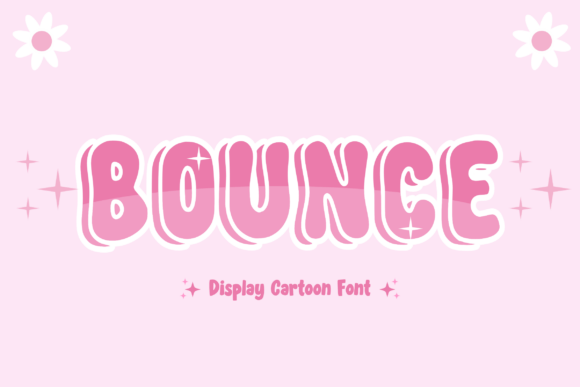
Bounce Font: Unleashing Creativity with a Contemporary Bubble-Ball Typeface
In the realm of typography, fonts play a pivotal role in conveying messages, expressing emotions, and capturing the essence of a brand or creative project. Among the myriad of fonts available, one design that has been making waves in the design community is the Bounce Font. This article aims to provide an in-depth look at the Bounce Font, its features, and the vast possibilities it offers for creative expression.
Introduction to Bounce Font
Bounce is a modern, bubble-ball typeface that has been meticulously crafted to infuse a playful and charming vibe into various design projects. What sets Bounce apart is its adorable characters that are instantly recognizable, making it an excellent choice for designers looking to add a whimsical touch to their creations.
Key Features of Bounce Font
- Playful and Charming Design: The Bounce Font boasts a unique, bubble-ball design that adds a playful and charming element to any project.
- Adorable Characters: Each character in the Bounce Font is designed to be instantly identifiable and exudes a sense of cuteness, making it perfect for projects aimed at a younger audience or those looking to evoke a sense of fun.
- Versatility: The Bounce Font is incredibly versatile and can be used across a wide range of mediums, including apparel like t-shirts, accessories such as mugs and tote bags, and even in animations and comic titles.
The Sublimation Design Process and Bounce Font
The sublimation design process has gained popularity for its ability to transfer vibrant designs onto various materials, including fabric, ceramics, and more. When paired with the Bounce Font, designers can create stunning apparel and accessories that stand out. The playful and charming nature of the Bounce Font lends itself exquisitely to this process, allowing for the creation of eye-catching and highly desirable products.
Applications of Bounce Font
The applications of the Bounce Font are vast and varied. Here are a few examples:
- Apparel: T-shirts, hoodies, and other clothing items featuring the Bounce Font are sure to appeal to those looking for fun and unique fashion statements.
- Accessories: Mugs, tote bags, and phone cases designed with the Bounce Font can add a playful touch to everyday items.
- Animations and Comic Titles: The Bounce Font can bring a lively and engaging feel to animations and comic titles, making them more appealing to audiences.
Unleashing Creativity with Bounce Font
The Bounce Font is more than just a typeface; it’s a tool for creative expression. Designers can let their imagination run wild, using the Bounce Font to breathe life into their ideas. Whether you’re creating merchandise, designing a brand identity, or working on a comic book, the Bounce Font offers endless possibilities for innovation and creativity.
The Bounce Font is a contemporary bubble-ball typeface that offers a fresh and playful approach to typography. Its adorable characters and versatile nature make it an excellent choice for a wide range of design projects. By incorporating the Bounce Font into your work, you can add a touch of whimsy and charm that sets your creations apart. So, let Bounce set your creativity free and watch as your ideas come to life in the most delightful way.